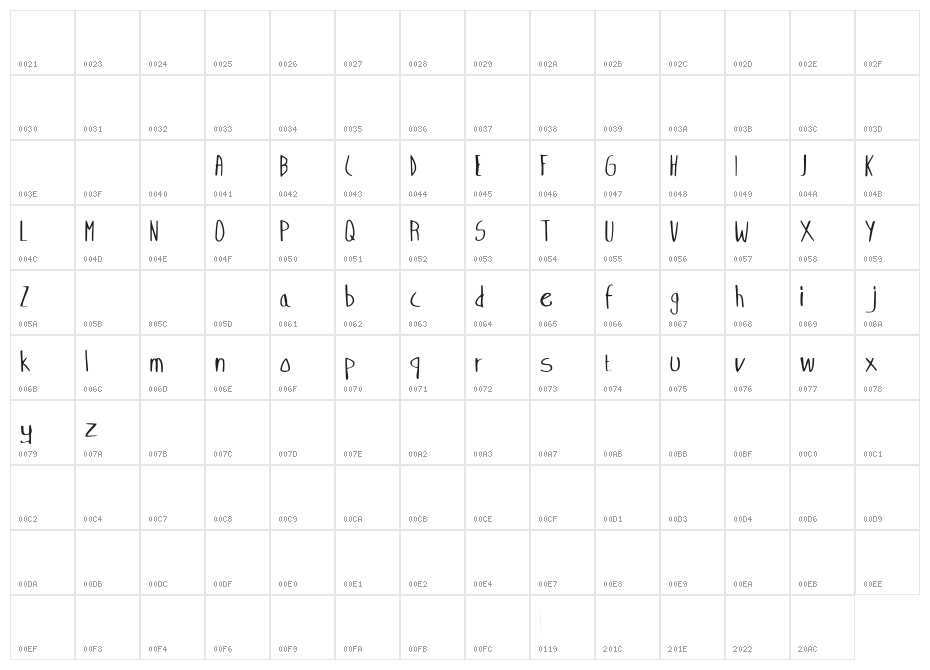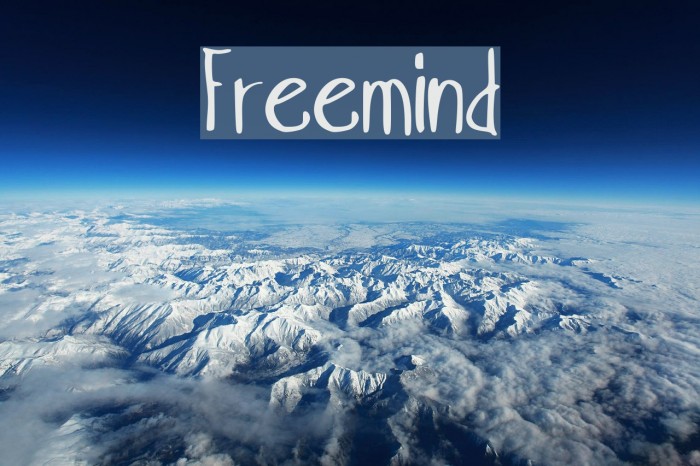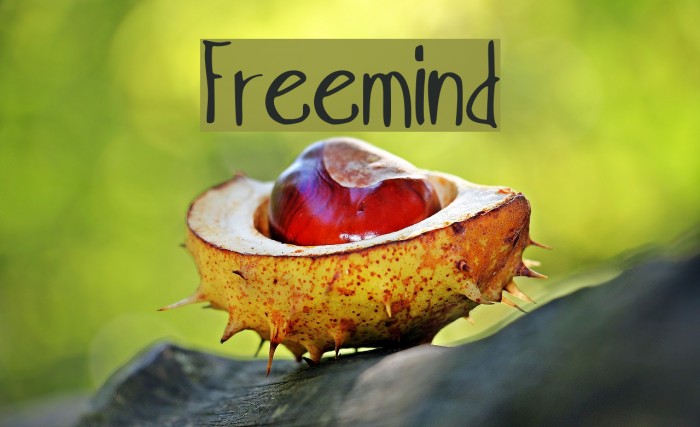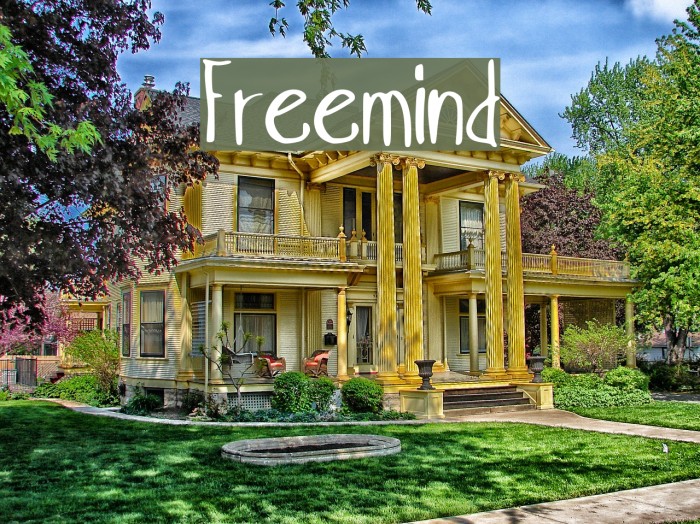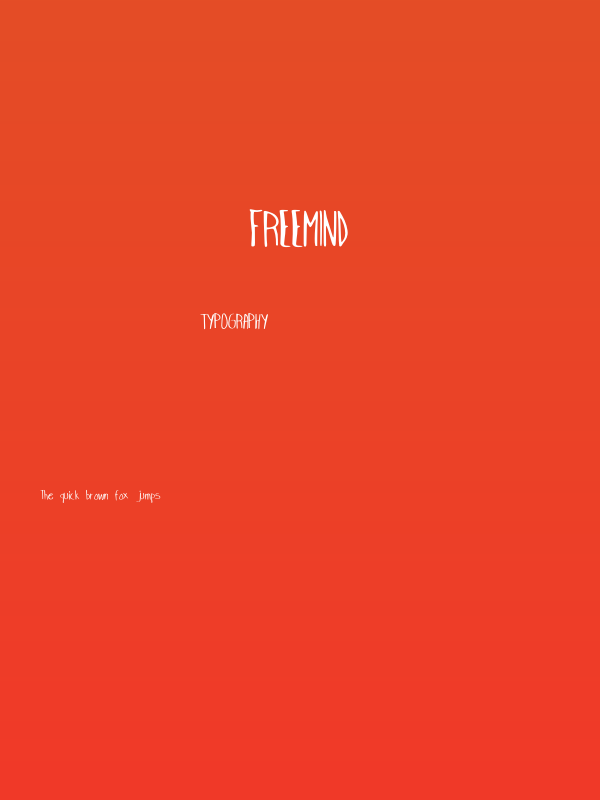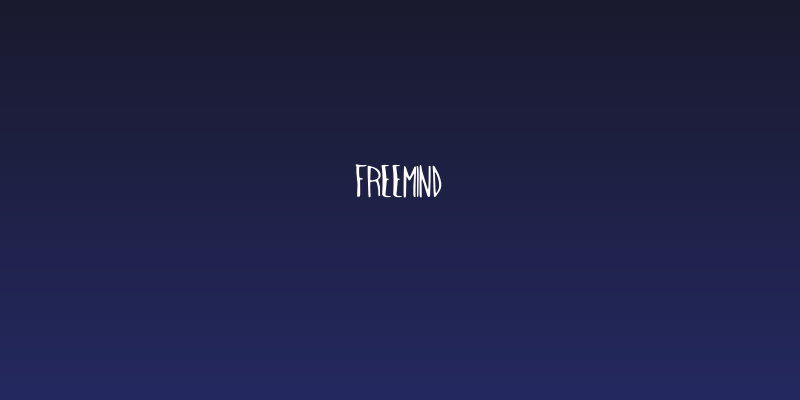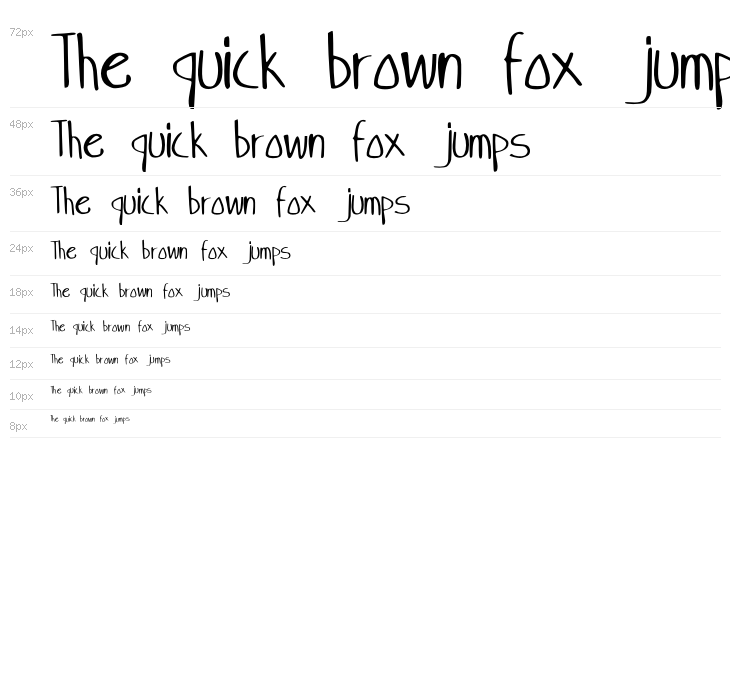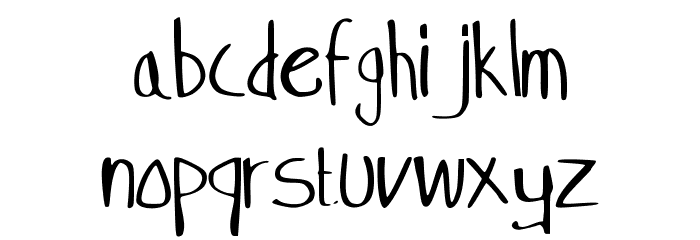
Freemind Font
Freemind Description
This font features a playful and informal handwritten style, characterized by its irregular strokes and whimsical appearance. The letters have a slightly uneven baseline, giving it a casual and approachable feel. The uppercase letters are tall and narrow, while the lowercase letters are more rounded and varied in height, adding to the font's quirky charm. The overall design is reminiscent of hand-drawn lettering, making it suitable for projects that require a personal touch. The font's unique style makes it stand out, perfect for creative and artistic applications.
| Proposed Projects | Ideal for greeting cards, children's books, casual branding, and creative posters. |